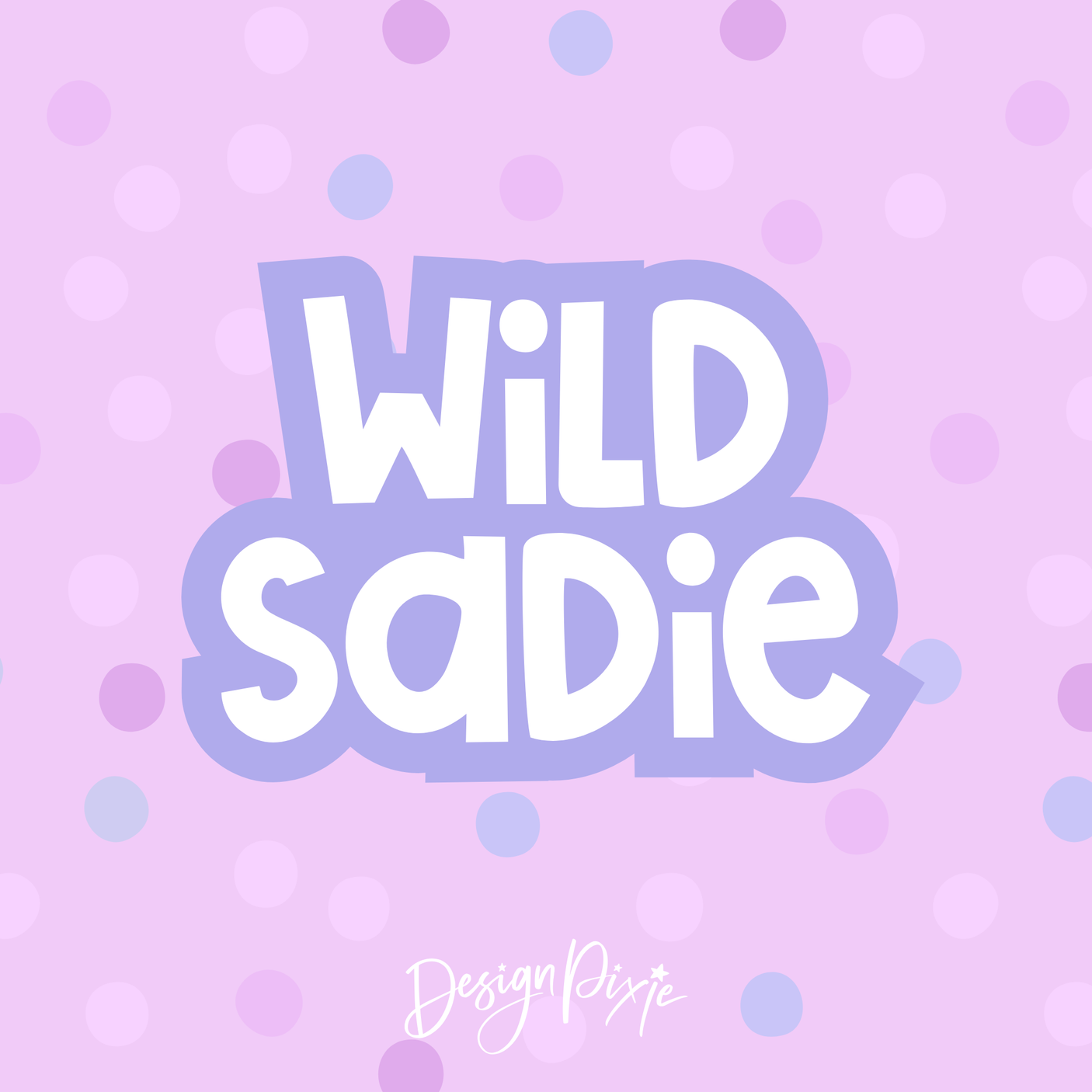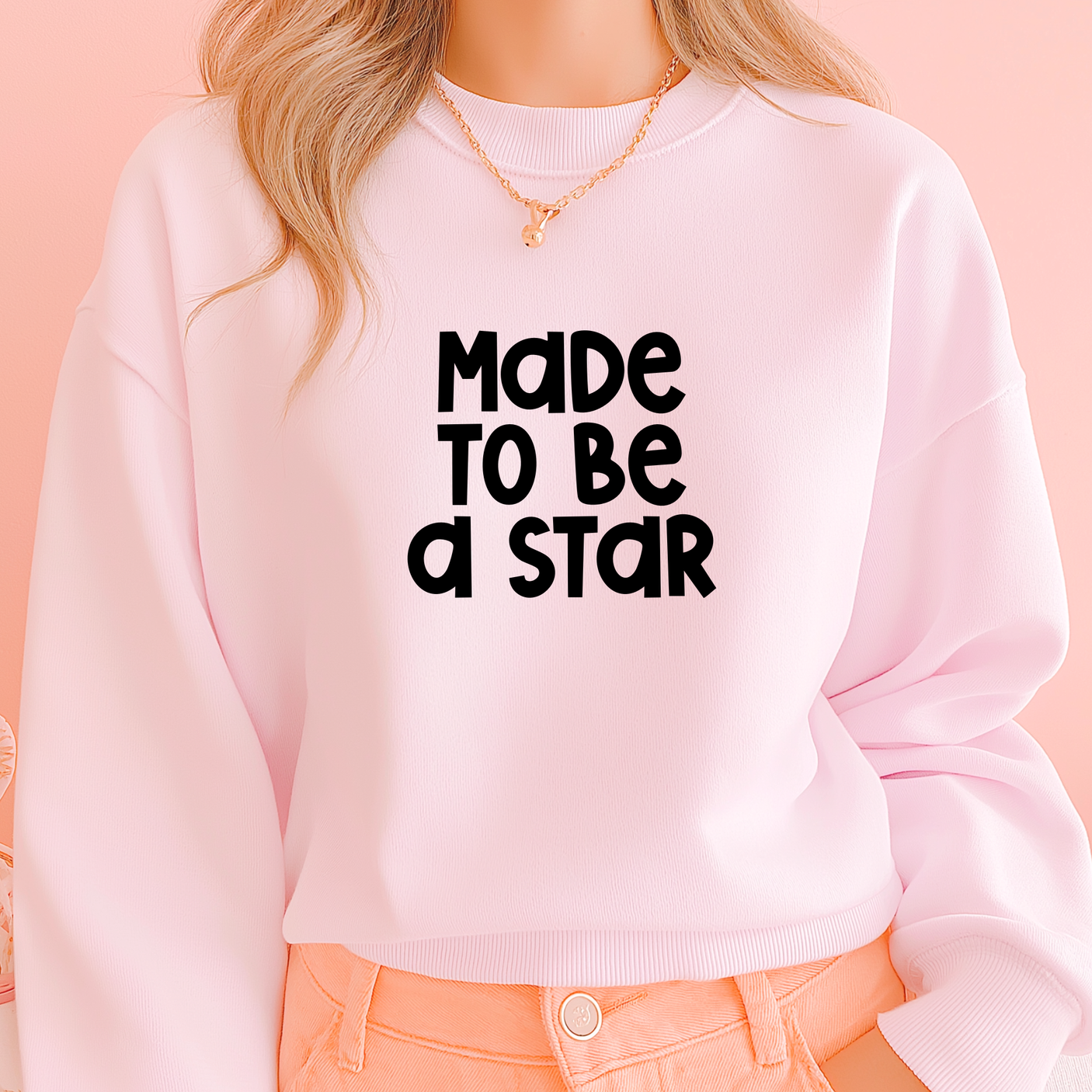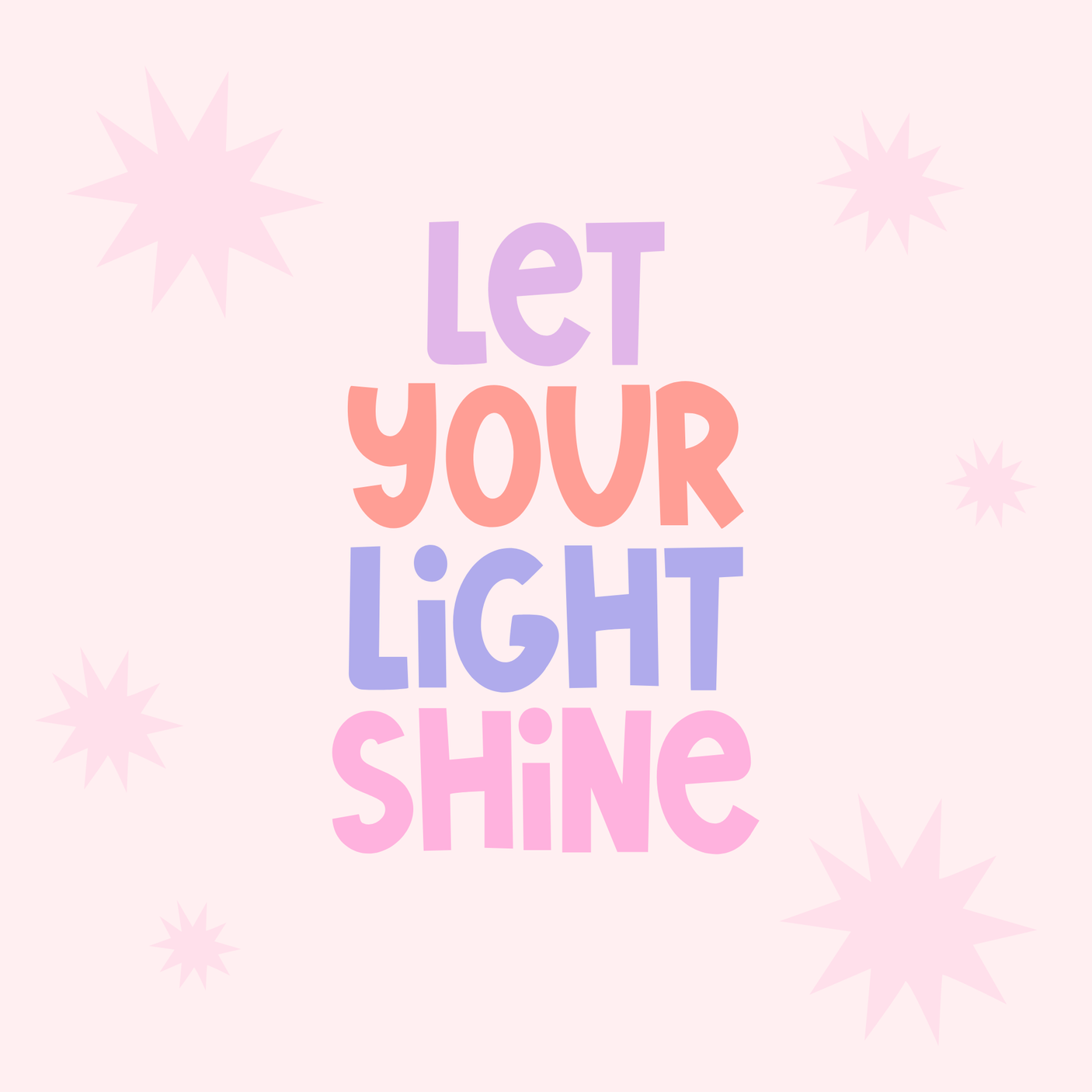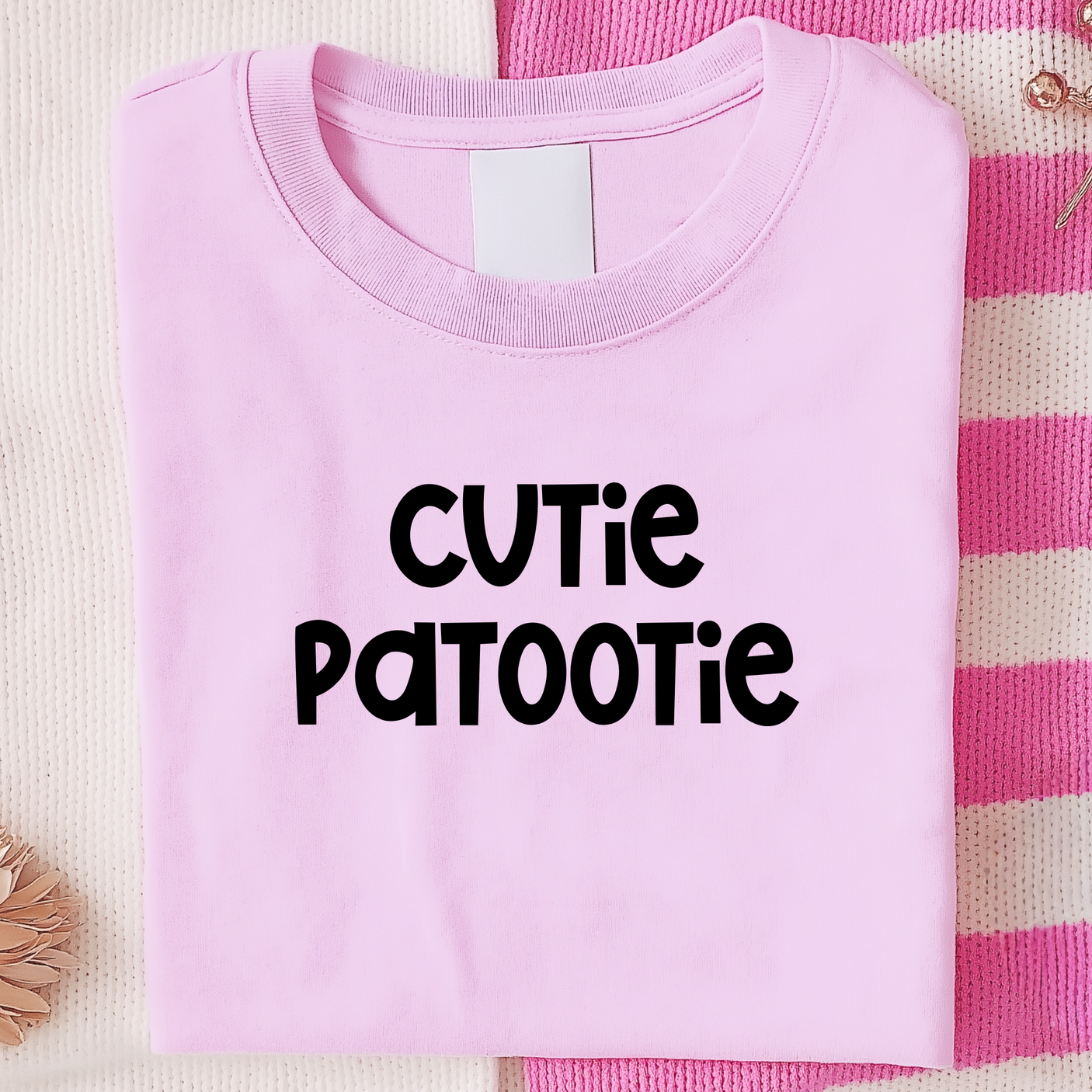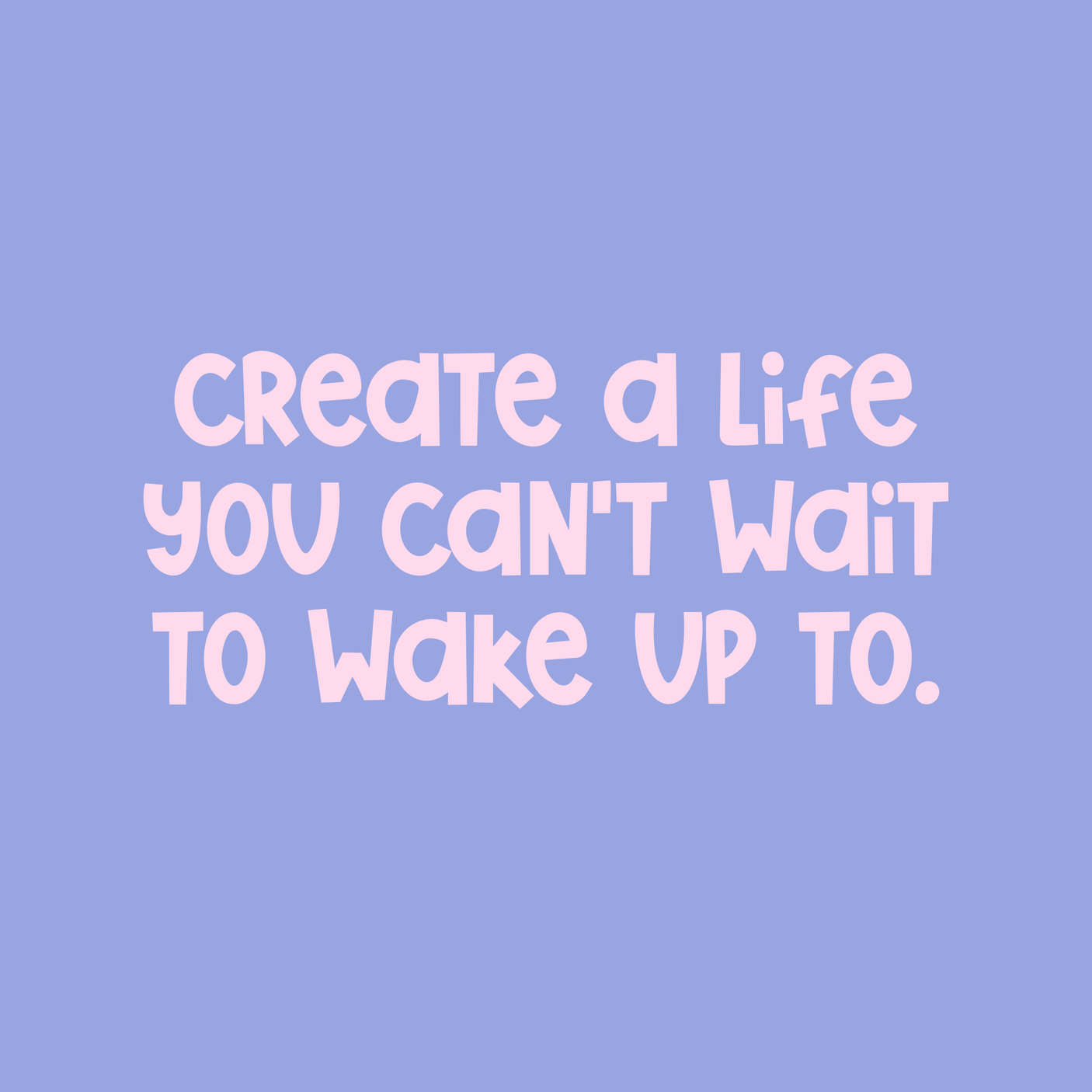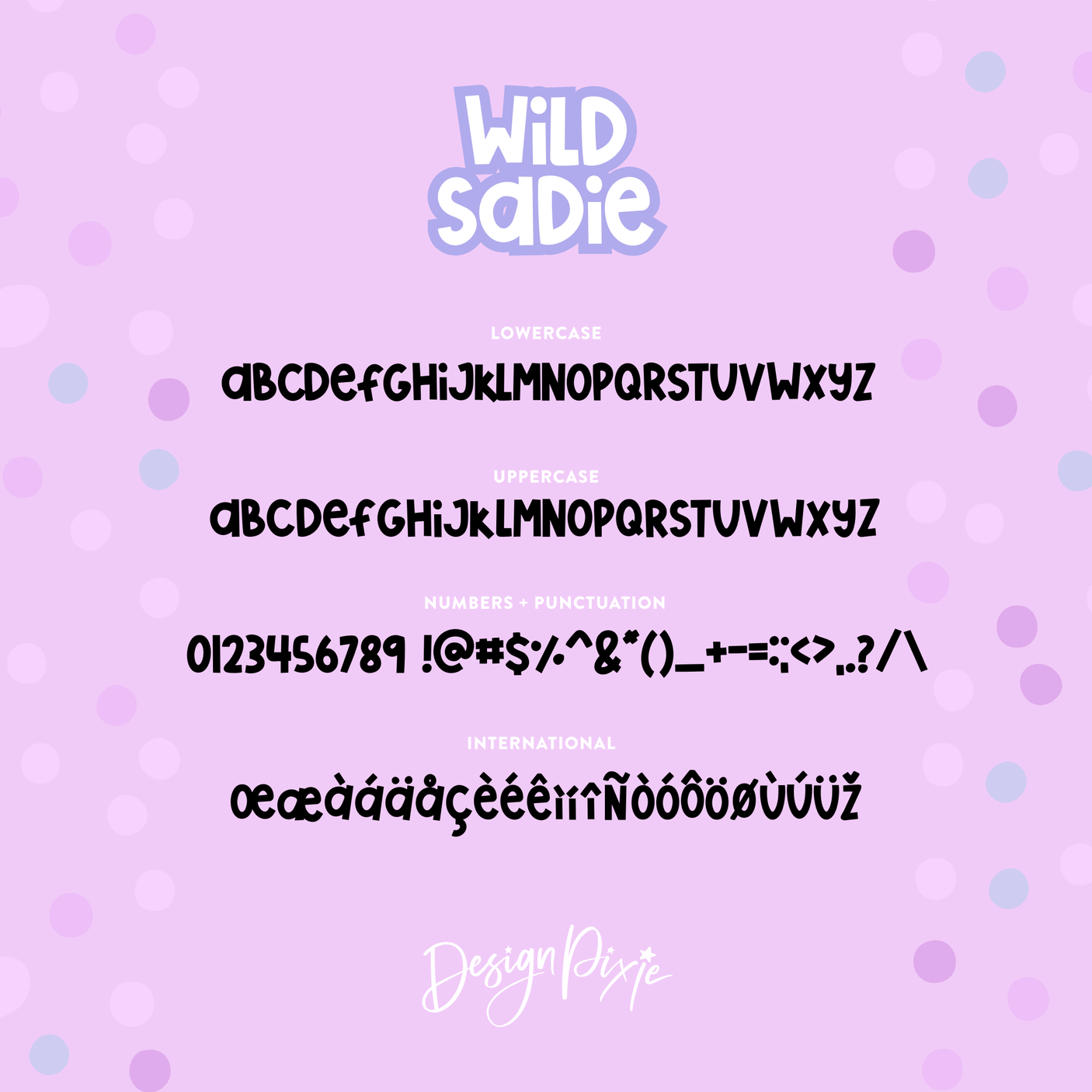
Wild Sadie Font
Meet Wild Sadie, the bold, chunky lettering font that instantly makes your designs pop. With its strong, playful shapes and eye-catching style, Wild Sadie is perfect for quotes, product designs, logos, stickers, shirts, labels, and any project that needs a big dose of personality.
This font is cute, confident, and full of charm - perfect for creators who want their words to stand out loud and proud. Whether you’re designing for your shop, creating fun digital products, or making bold statements in your branding, Wild Sadie adds a cheerful, memorable touch to every project.